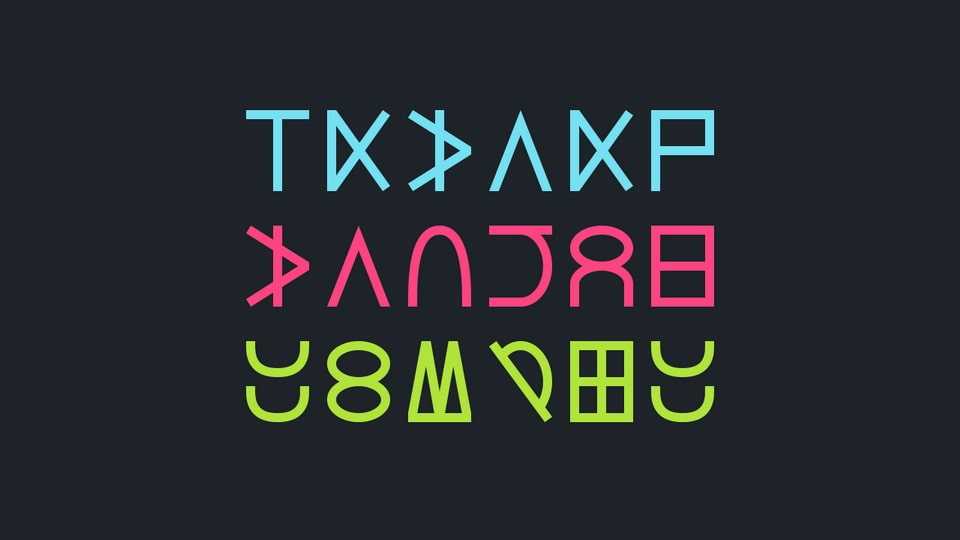
Download Lucius Cipher font, a mystery display typeface inspired by alien typography. With its unique look Lucius Cipher font is suitable for futuristic, cryptography and sci-fi projects.